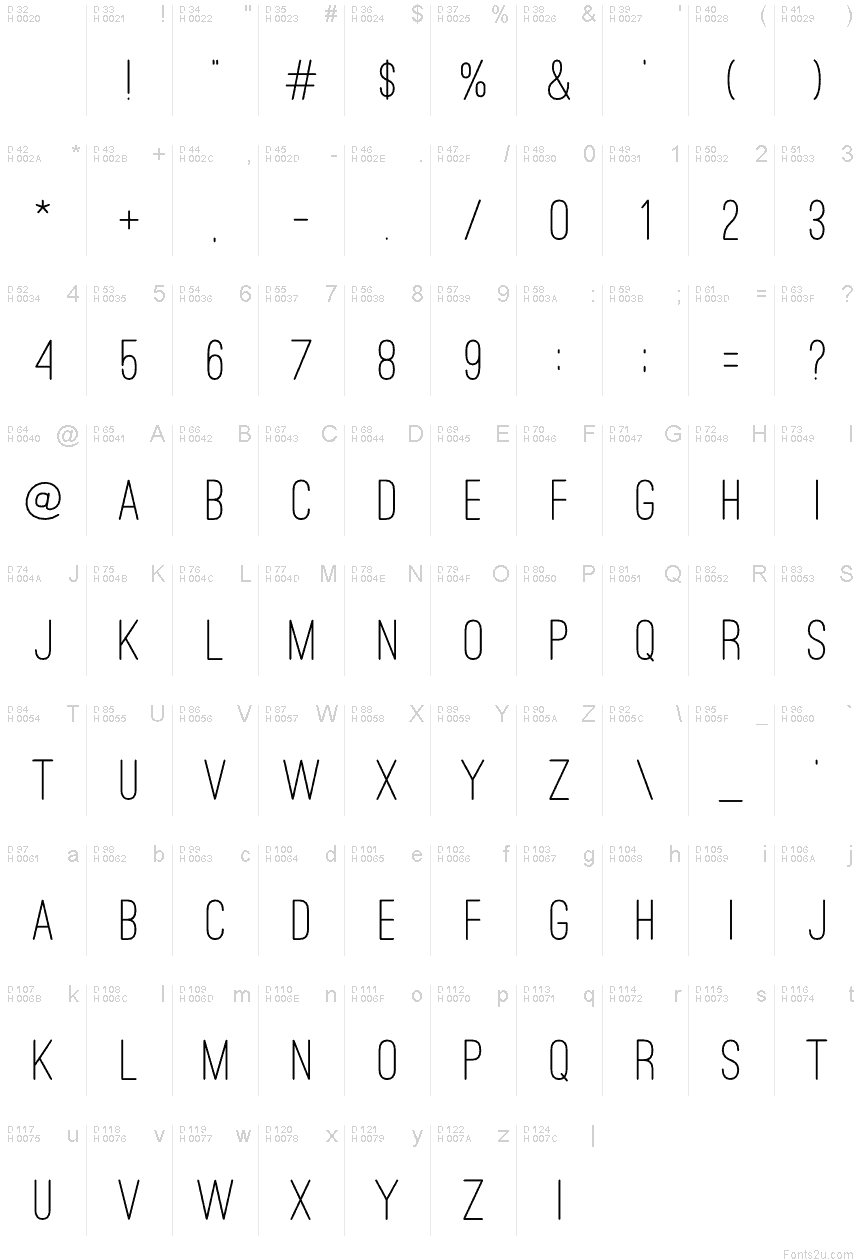
Ostrich Sans Font Family
Ostrich Sans Font Family. Ostrich sans inline is the most recent to the family and has basic international character support and an italic style. Complete pack contains 9 font weights listed below:
Ostrich Sans Free Font Family Is A New Improved Version Of Ostrich Sans Is Soon To Be Available With Lowercase Characters, Diacritics, Logical Kerning (As Opposed To No Kerning), And New Glyphs.
Ostrich Sans Inline Is The Most Recent To The Family And Has Basic International Character Support And An Italic Style.
Dashed (Thin) Rounded (Medium) Ultra Light Normal Bold (Race Track Style Double Lines) Black Ostrich Sans Inline Is The Most Recent To The Family And Has Basic International Character Support And An Italic Style.